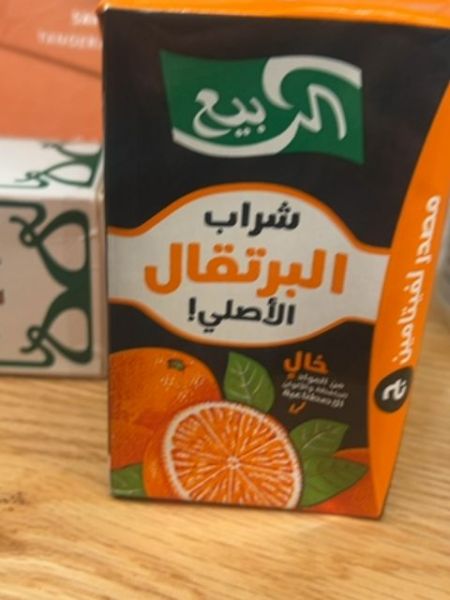
Al Rabi'e Orange Juice
A refreshing orange juice beverage aimed at providing a natural and pure taste experience.
Saudi Arabia
The typography uses a modern Arabic script with bold, clear, and flowing characters that enhance readability. The brand name is prominently displayed at the top with a larger and more stylized font, creating a strong brand presence. The supporting text is in a sans-serif font that complements the overall modern look of the packaging.
The packaging is a small, compact carton with a vibrant orange and green color scheme. It features imagery of fresh whole and sliced oranges to emphasize the flavor and natural ingredients. The design is modern and appealing, catering towards a health-conscious consumer.
- It is made from real orange juice.
- The product emphasizes being free from artificial colors and flavors.
- The brand is well-known in the Middle Eastern market.